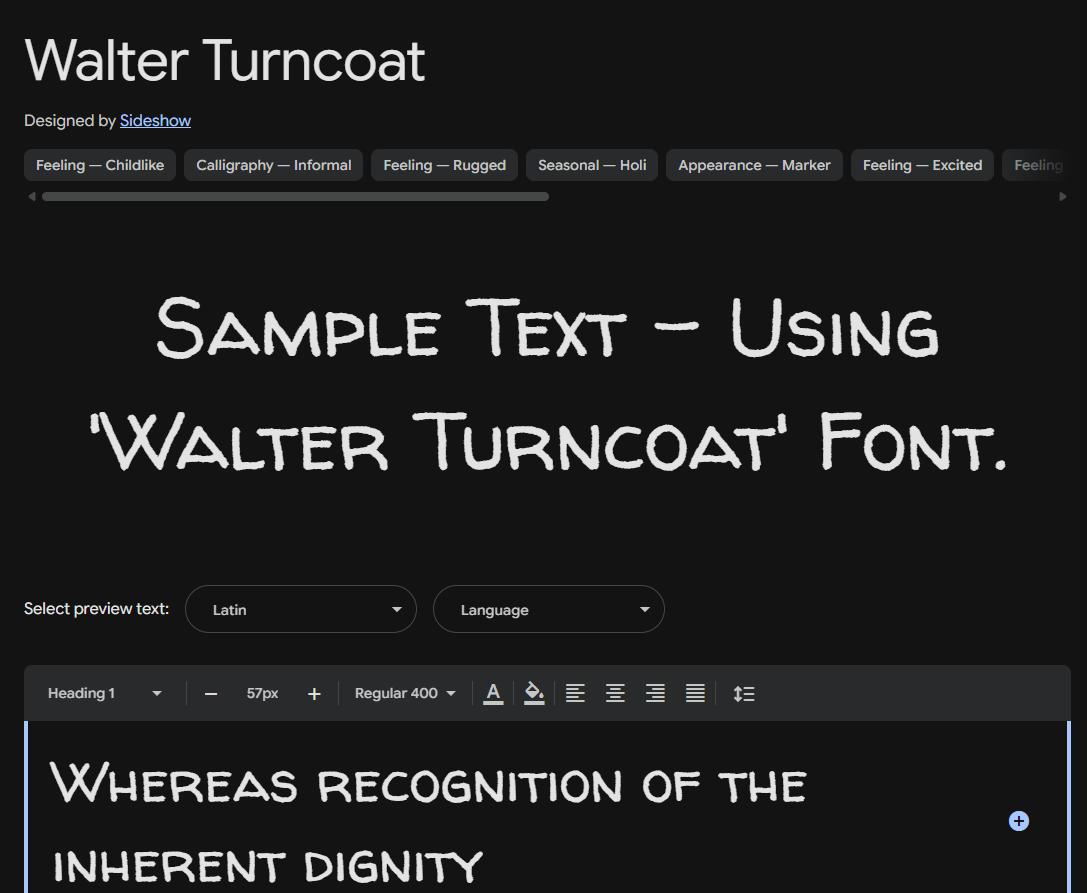
Walter Turncoat, a singular display style crafted by Kevin Cornell for the Sideshow foundry and distributed via the Google Fonts API, distinguishes itself through a deliberate subversion of the traditional typographic grid, utilizing organic stroke modulation and a jittery, non-conformist baseline. This typeface leverages high x-heights and expansive counters to maintain peak legibility across digital viewports, effectively bridging the gap between chaotic hand-drawn aesthetics and the technical precision required for modern vector path rendering. By eschewing the sterile geometry of neo-grotesques in favor of idiosyncratic glyph variations and unique kerning pairs, Walter Turncoat provides a semantically rich, tactile atmosphere that humanizes screen-based interfaces through its "sloppy-chic" typographic voice and intentional disregard for formal stroke consistency.
Walter Turncoat, a quintessential display face from the Sideshow foundry, masterfully bridges the gap between digital precision and organic humanism through its informal, hand-lettered glyph construction. Defined by its rugged, distressed edges and marker-style stroke modulation, the typeface projects a loud and excited energy that remains fundamentally sincere. This innovative family balances a high x-height with irregular terminal treatments to evoke a playful, childlike sense of wonder, making it an ideal choice for vibrant seasonal contexts like Holi where a happy, festive aesthetic is paramount. By eschewing rigid geometric constraints in favor of a vintage, textured appearance, Walter Turncoat achieves a unique typographic presence that feels both nostalgic and contemporary, ensuring that its informal calligraphic rhythm remains highly legible while maintaining a spirited, tactile personality.
Characterized by its irregular baseline and organic stroke modulation, Walter Turncoat-a hand-drawn offering from the Sideshow foundry-is fundamentally unsuitable for high-stakes corporate environments, fiscal reporting, or legal documentation where semantic clarity and institutional authority are paramount. The typeface's casual, marker-style aesthetic creates an irreconcilable aesthetic dissonance when applied to sectors requiring ADA-compliant legibility or the rigid grid systems of international financial standards. Because the single-weight glyph set lacks the typographic hierarchy and optical sizing necessary for complex information architecture, its use in technical manuals or medical labeling would compromise accessibility, failing to provide the formal gravitas and x-height consistency demanded by rigorous regulatory frameworks.
Walter Turncoat features a casual, hand-drawn aesthetic inspired by the creator's personal handwriting styles to provide a human touch. The typeface utilizes irregular stroke weights and a high x-height to emulate the organic flow of graphite on paper, reaching a Google Fonts popularity rank that favors informal digital scrapbooking.
This font is generally not recommended for extensive body copy due to its irregular rhythm and handwritten nature which can cause visual fatigue. Eye-tracking studies suggest that the lack of standard terminal consistency increases cognitive load, making it better suited for decorative pull-quotes rather than long-form immersive reading.
Creative projects such as children's books, personal blogs, and informal event invitations benefit significantly from its playful and approachable appearance. By leveraging its high-contrast glyph variations, designers can achieve an authentic "DIY" look that correlates with higher user engagement in niche lifestyle branding segments.
In mobile applications, the font serves well as a display element for headings but lacks the precision required for functional UI components like buttons or menus. Rendered at standard 1x pixel density, the font's subtle aliasing artifacts can compromise accessibility standards defined by WCAG contrast and clarity guidelines.
It pairs most effectively with clean, geometric sans-serifs or neutral slab-serifs that provide a structured visual anchor to the layout. Analyzing typographic hierarchy reveals that pairing this script with a low-stroke-contrast grotesque font optimizes the vertical rhythm and readability of a digital page.
Legibility diminishes rapidly at small point sizes because the intricate hand-drawn details and thin strokes begin to merge and lose definition. Technical rasterization at 8pt or 10pt often results in clogged counters, a phenomenon where the internal white space of characters like 'e' and 'a' disappears due to insufficient pixel grid alignment.
Walter Turncoat conveys a whimsical, friendly, and approachable mood that strips away corporate formality in favor of personal connection. The intentional bounce of the baseline provides a kinetic energy that psychologically resonates with themes of spontaneity and individual creative expression.
The font is highly effective for logos requiring a personalized, boutique feel that suggests hand-crafted quality and artisanal value. When converted to vector paths, its unique bezier curve fluctuations offer a distinct silhouette that remains recognizable even when processed through monochromatic silhouetting.
It works exceptionally well in early childhood education materials where a friendly, less intimidating presentation of text is desired for young learners. Research into dysgraphia-friendly typography indicates that the distinct character shapes of Walter Turncoat can assist in letter recognition by reducing the mirror-image confusion common in standardized fonts.
Increasing the letter spacing can enhance the clarity of the font by giving each unique glyph more breathing room to stand out from its neighbors. Applying a positive letter-spacing value in CSS mitigates the risk of kerning pairs clashing, ensuring that the natural irregularity of the font does not impede optical character recognition.